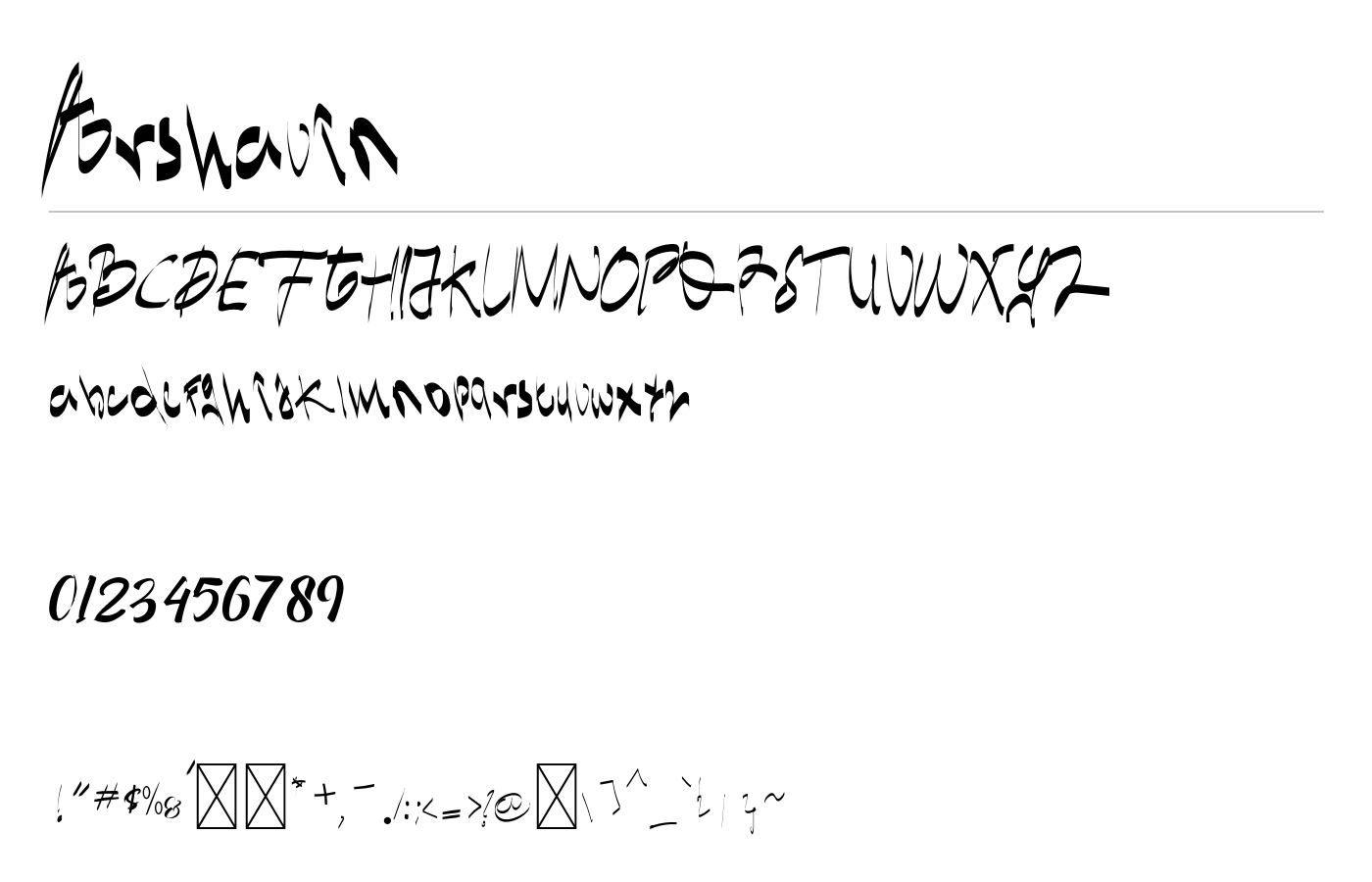
Arshavin is a highly stylized script font with an edgy, abstract appearance that blends sharp, jagged strokes with fluid, calligraphic influences. Its irregular letterforms and varying stroke widths give it a raw, expressive personality suited for artistic, avant-garde designs or striking headlines where uniqueness and impact are key. This font works best in creative projects like posters, logos, or edgy branding that benefit from a bold, unconventional look.
Arshavin Font
About Arshavin Font
| Designer | Nube |